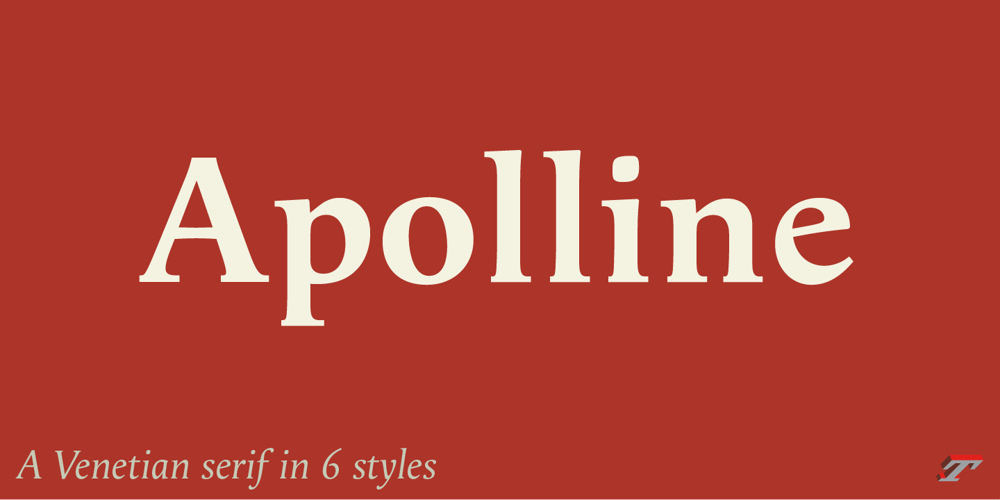
Apolline Std Font Family was designed by Jean François Porchez and published by Typofonderie. Apolline Std contains 6 styles and family package options. A Venetian serif in 6 stylesThe Apolline typeface family was created by Jean François Porchez as a means to study the transition from Renaissance writing into the first printing types. Rather than sticking to the method commonly used these days for the creation of revivals of Jenson or Bembo types, it seemed more interesting to try and get in the same mindset as those exceptional designers during this pivotal period in the history of typography. Thus Apolline is an exploration of the design methods used by people like Nicolas Jenson and his contemporaries for adapting handwriting with its multiple occurrences (a, a, a, b, b, b…) into single, unique signs (a, b…).Initially Jean François made drawings modelled after his own calligraphy. They were done at a very small size on tracing paper (2 cm high for the capitals) to preserve the irregularity of human handwriting. Besides emphasising the horizontal parts of the letter forms, the serifs were designed asymmetrically to reinforce the rhythm of the writing. The final drawings were produced at a large size (10 cm high for the capitals) to allow for subtle optimisation of specific details.The very narrow and fluid Apolline italicInfluenced by various concepts for an ideal italic by Van Krimpen, Gill, etc. Apolline italic was designed at 8° degrees. Although the structure of the letterforms were informed by chancery scripts, the italic has full serifs like the roman. Very narrow and fluid, its unique design creates a good contrast when used in combination with its upright counterparts. Thanks to the presence of the serifs similar to roman typefaces it sets very neatly in large sizes.The next step was digitising the drawings with Ikarus (the pre-Bézier-curves era) to create the final roman and italic fonts. Two years later, when the family was expanded to six series the same method was used, this time with Fontographer. This was necessary for correcting a few problems caused by the conversion to Bézier outlines, and to add intermediate weights. Before the advent of feature-rich OpenType, quality type families consisted of several separate fonts for each weight to provide users with various sets of numerals, an extended ligature set and alternates, ornaments, and so on.Introducing ApollineMorisawa Awards 1993